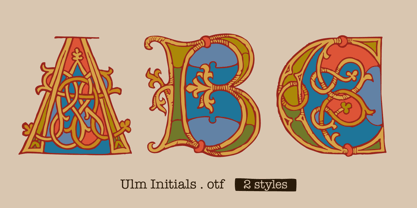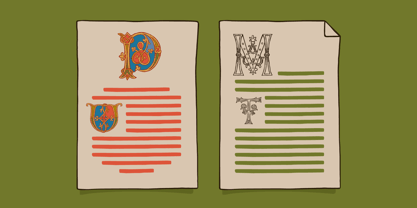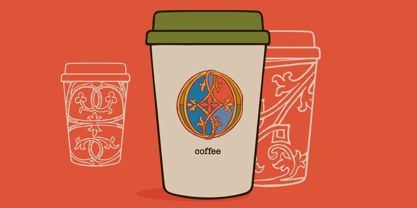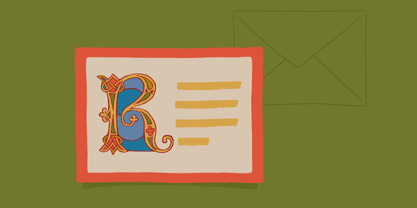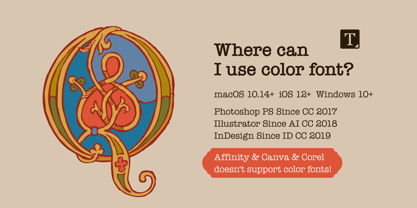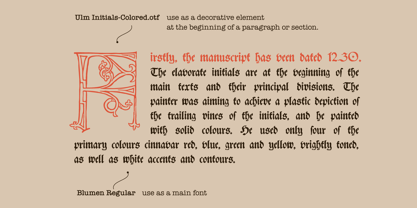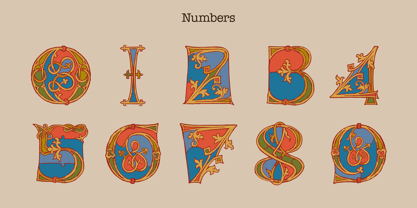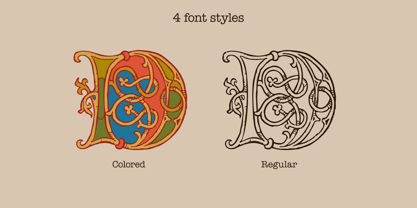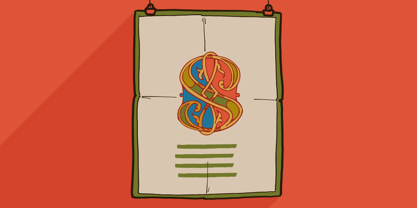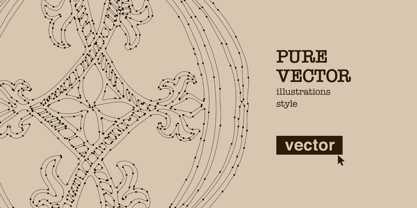
Ulm Initials
Bring the beauty of 15th-century print culture into your designs with this richly ornamented decorative typeface, inspired by the historic Vocabularius bibliae (1476), printed in Ulm.
This font reimagines medieval illuminated initials with intricate floral details, elegant linework, and bold Gothic forms. Each letter is designed as a decorative statement piece, echoing the artistry of early European books where typography met hand-crafted illustration.
Perfect for adding a touch of history and sophistication, this typeface works beautifully in:
• Book covers & editorial layouts
• Logos & branding projects
• Posters & invitations
• Packaging design
• Certificates & luxury stationery
Whether you're creating a vintage-inspired brand or a dramatic historical composition, this font delivers a unique blend of authenticity and artistic flair.
Why You’ll Love It
• Authentic medieval inspiration
• Highly detailed ornamental style
• Perfect for eye-catching headlines and initials
• Adds instant character to any design